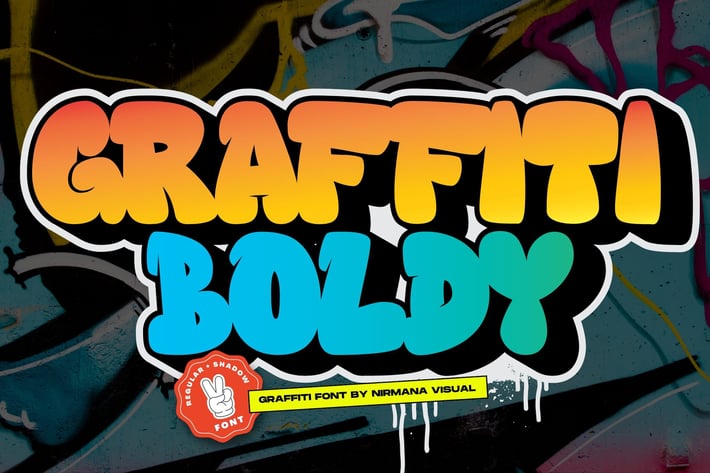
Graffiti Boldy - Logo Font
Introducing Graffiti Boldy
Inspired by Graffiti style Design, with 2 Style : Regular & Shadow
Graffiti Urban offers beautiful typographic harmony for a diversity of design projects, including logos & branding, social media posts, advertisements & product designs.